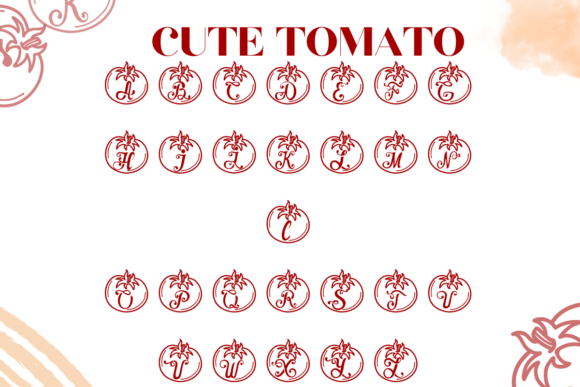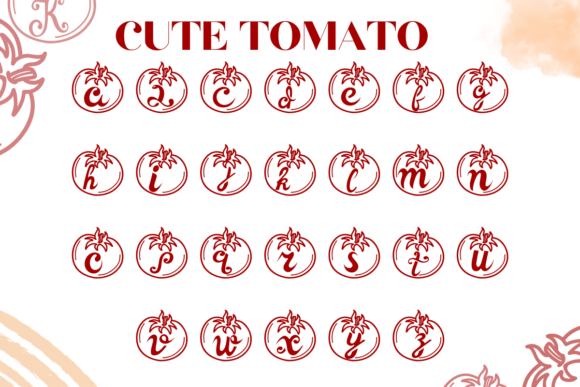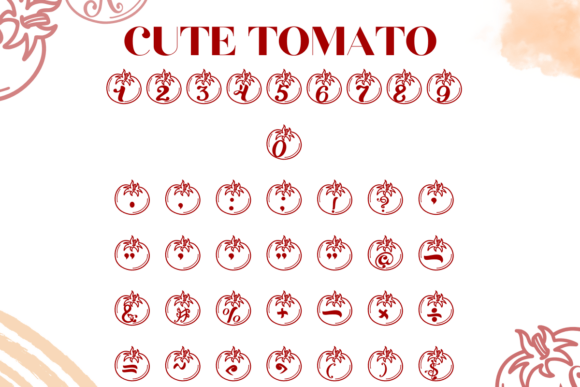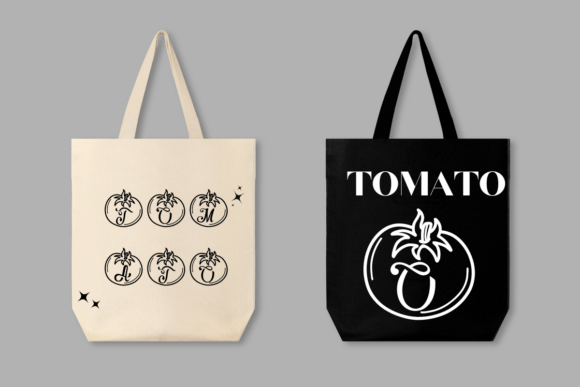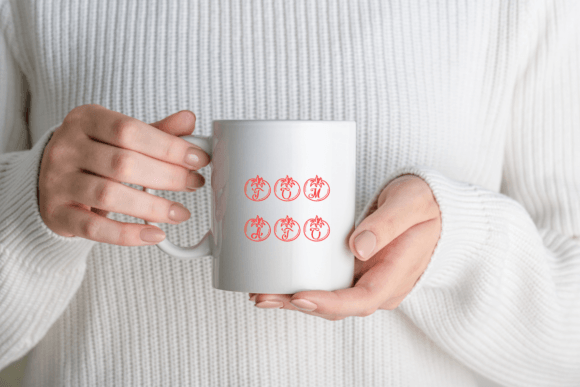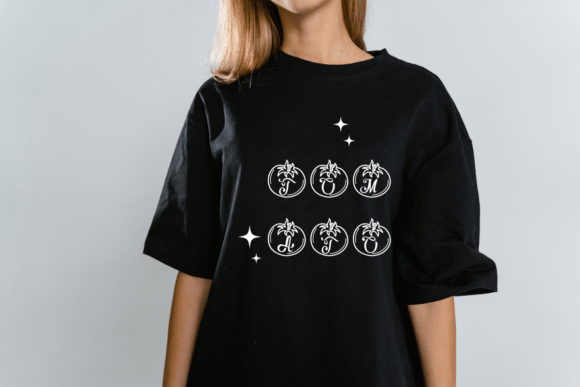
The Sweetest Font You’ll Ever Use: Cute Tomato
I’ll never forget the time I was working on a design project for a client’s garden party invitation. I wanted to add a playful touch, but every font I tried seemed too formal or boring. That’s when I stumbled upon the Cute Tomato font 🎉. It was love at first sight! Each letter is shaped like a bright, cheerful tomato, and it instantly brought the fun and freshness I needed to the design.
An Honest Review of Cute Tomato
- ✨ The font is ridiculously cute and playful, making it perfect for designs that need a whimsical touch.
- ✅ The bright, tomato-shaped letters are sure to grab attention and add a pop of color to your designs.
- 🎉 It’s incredibly versatile and can be used for a wide range of projects, from invitations and greeting cards to social media graphics and more.
While Cute Tomato is an amazing font, there are a few things to keep in mind 🤔:
- ⚠️ The font may not be suitable for body text or reading-heavy content, as the letters can be a bit tricky to read.
- ⚠️ Some of the letters may not be as legible when used at smaller sizes.
One of the best things about Cute Tomato is its OpenType features and glyphs. These allow you to customize the font even further and add more variety to your designs. Here are a few tips:
The Backstory of Cute Tomato
Cute Tomato was designed by a freelance designer who loves experimenting with unique and playful typography. The designer wanted to create a font that would bring a smile to people’s faces and add a touch of whimsy to their designs. And so, Cute Tomato was born! 🍅
Q: Is Cute Tomato suitable for body text?
A: While Cute Tomato is an amazing font, it’s not ideal for body text or reading-heavy content. The letters can be a bit tricky to read, and it’s better suited for headlines, titles, or decorative text.